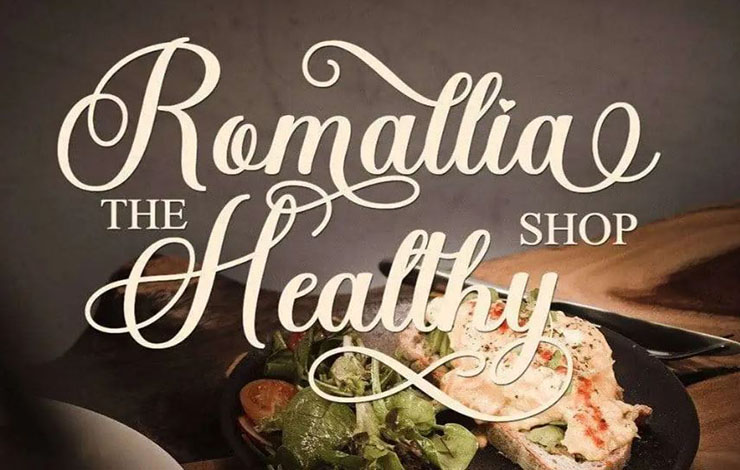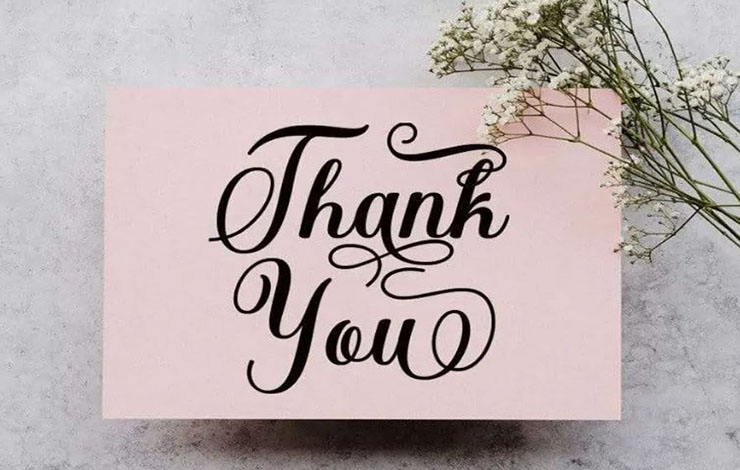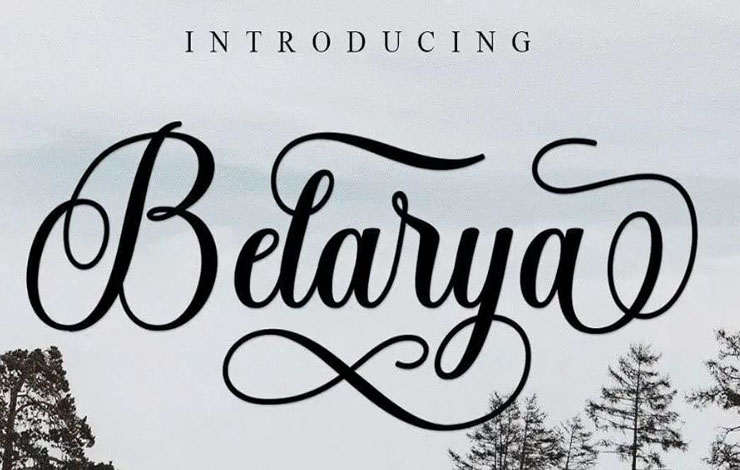
Introducing Belarya Font, a new modern script calligraphy typeface with its unique flow and elegant personality. It was designed and published by Gian Studio.
The designer has created the texture with a brush and added extra curves just to make it cooler and proficient. One more thing that is added by the designer is the swashes.
Its various swashes and caps make it an excellent choice for branding, wedding invitations, magazines, mugs, business cards, quotes, flyers, birthday cards, headers, posters, signatures, and many more.
Belarya Font Information
| Font Name: | Belarya Font Family |
| Style: | Script, Calligraphy, Typeface |
| Font Designer: | Gian Studio |
Due to its stylish and modern look, it can be used for social media posters, banners, special quotes, headlines, thumbnail titles, unique signs, t-shirt printing, signs, birthday cards, social media cards, wedding cards, official cards, and tattoos. Suitable for, stickers, social media posts, covers, posters, product designs, product packaging, shopping bags, advertisements, etc.
This font supports 89 multilingual languages.
What is a Belarya Font?
Introducing Belarya Font, a new modern script calligraphy typeface with its unique flow and elegant personality. It was designed and published by Gian Studio.